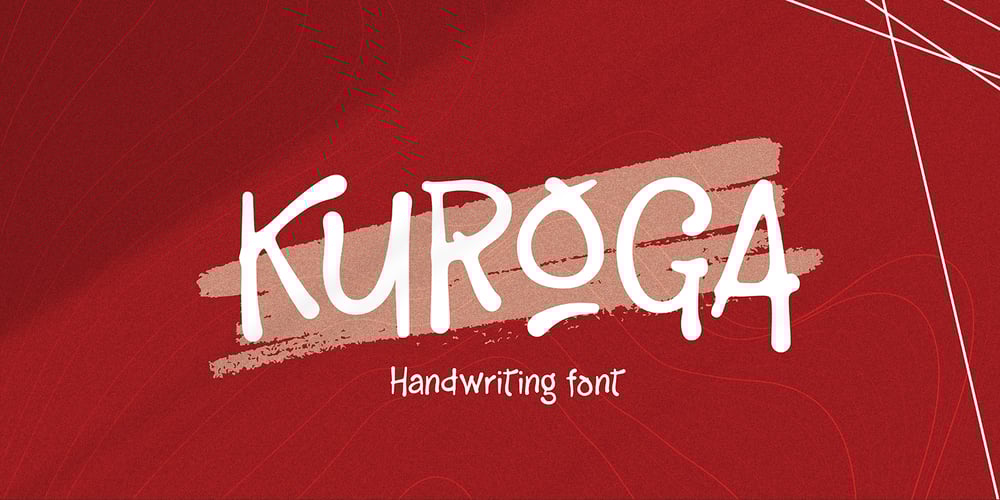
Kuroga Font Family was designed by Jarnawi Saja and published by Grontype. Kuroga contains 1 styles and family package options. Kuroga is a captivating and distinctive handwriting font that effortlessly blends artistry with legibility. Every stroke of this unique typeface exudes personality and charm, making it stand out in the realm of handwritten fonts. The letters flow seamlessly, creating a rhythmic and organic appearance that mimics the natural ebb and flow of handwriting. Kuroga is Perfect for quotes, packaging, cards, posters, stickers, social media posts and more!Features: Unique Swash Basic Latin Glyphs Uppercase and Lowercase Letters Ligatures & Alternate Numeral and Punctuation Multilingual Support Thankyou for picking up this font, hope you enjoy it.Regard, grontype